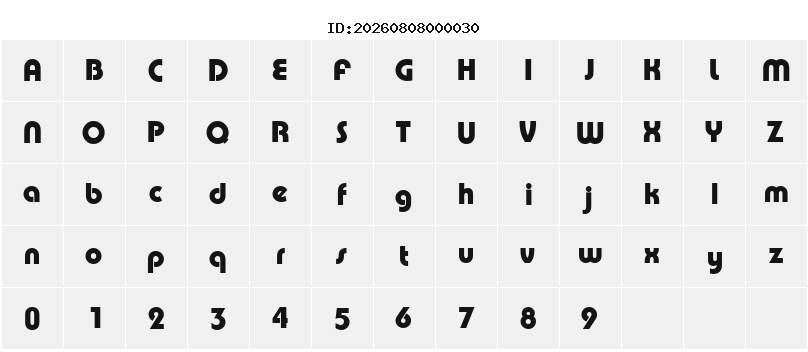
• Font Name: Puente-Demi
• Full Font Name: Puente-Demi-Regular
• Designer: SoftMaker Software GmbH
• Manufacturer: SoftMaker Software GmbH
About Puente-Demi.ttf
Puente-Demi.ttf is a modern, elegant sans-serif font designed for ultimate readability and visual harmony. Perfect for branding, headlines, web design, and print materials.